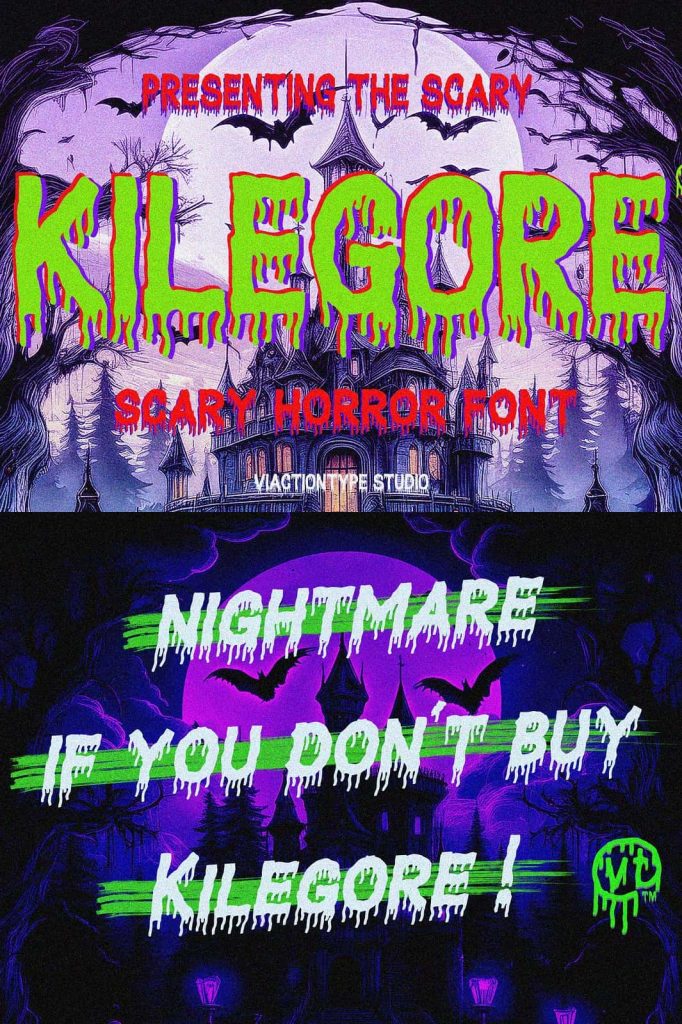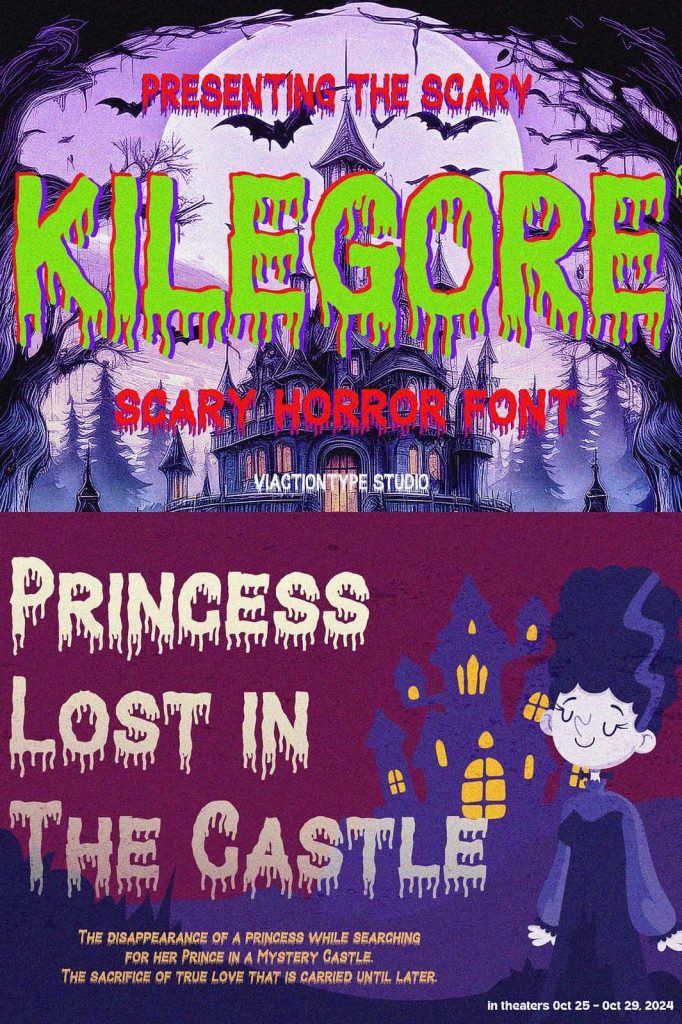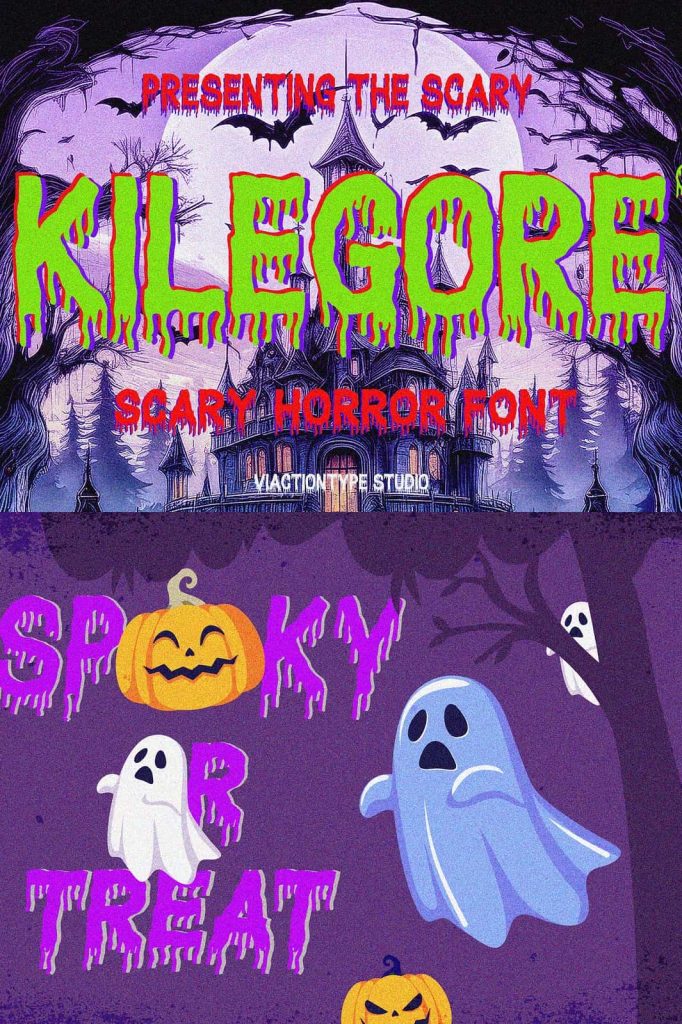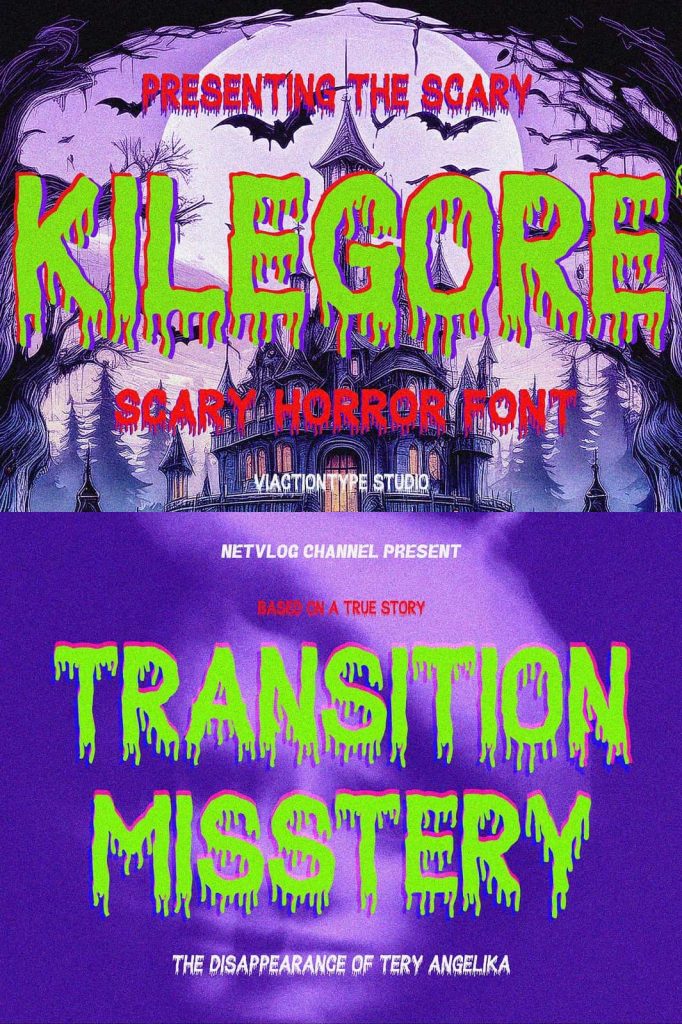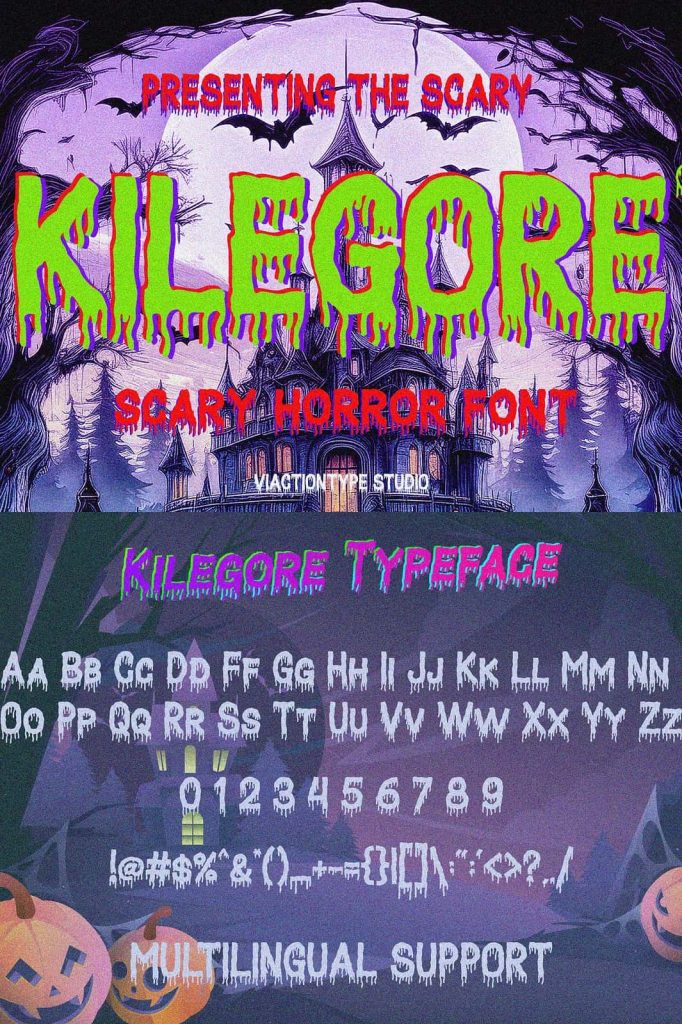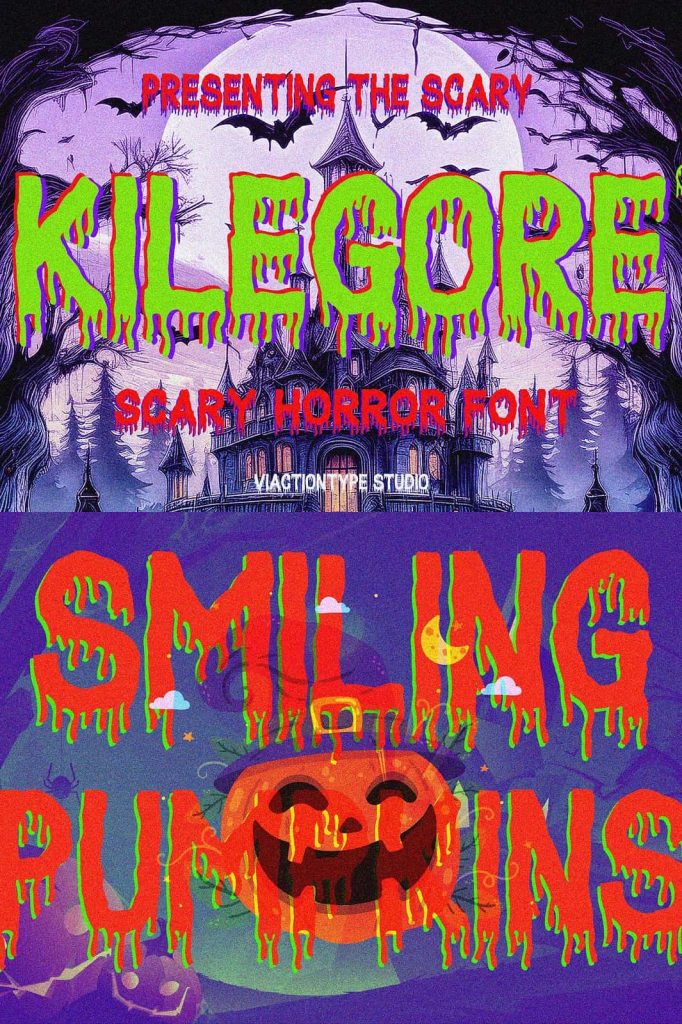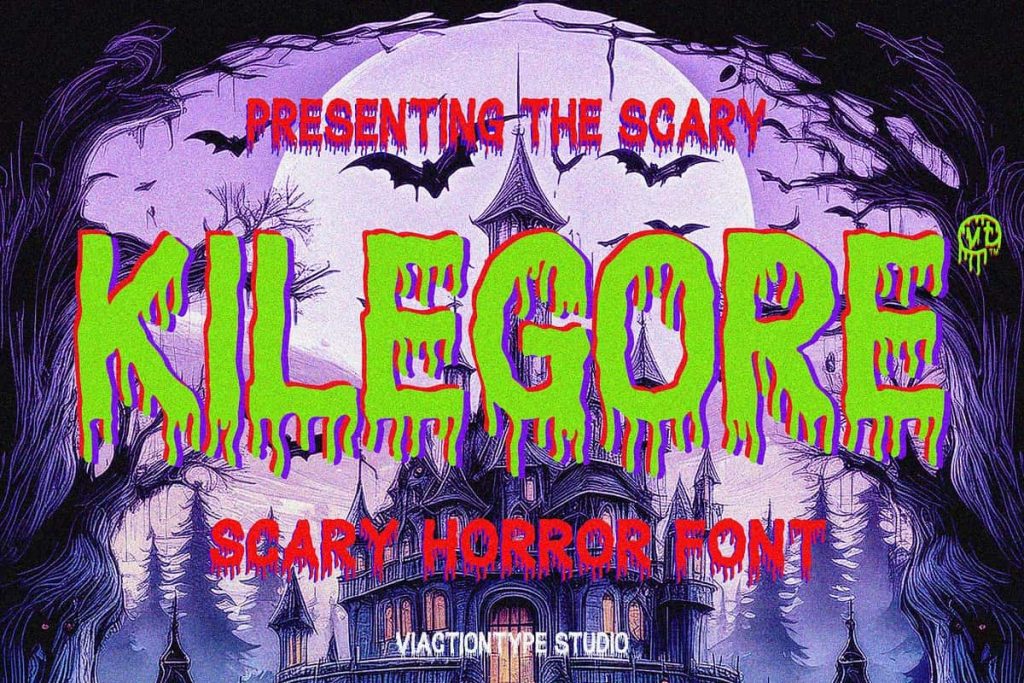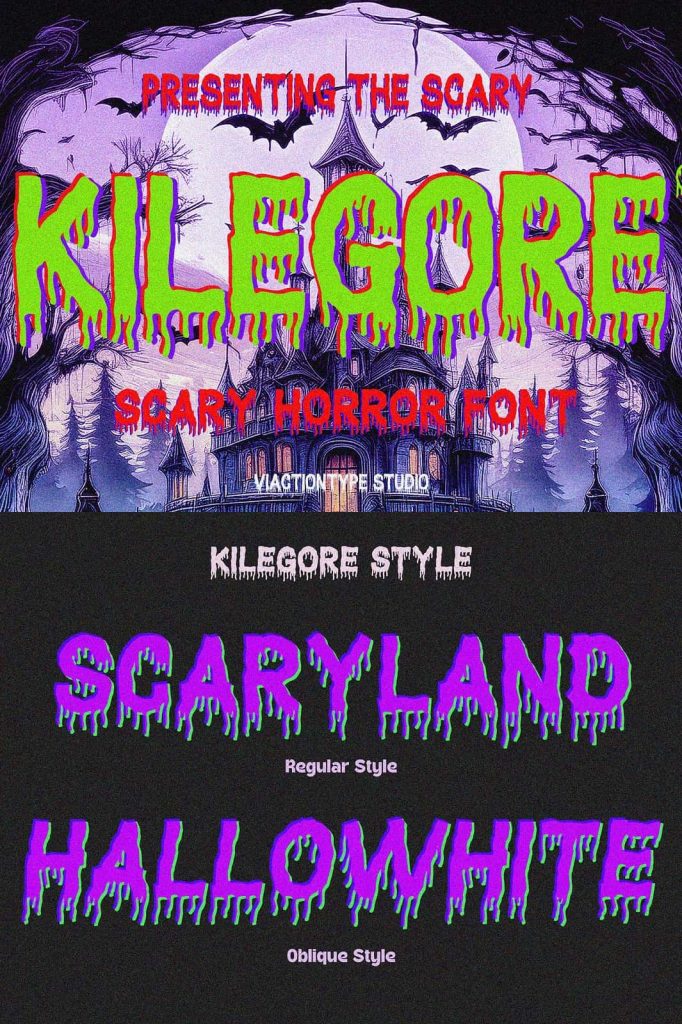
Introducing Kilegore, a chilling display font designed for all your horror and Halloween-themed projects. This sans-serif typeface features a unique rough texture and dripping letterforms, perfectly capturing the eerie essence of the spooky season.